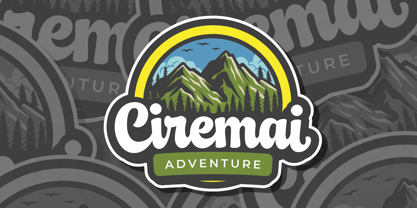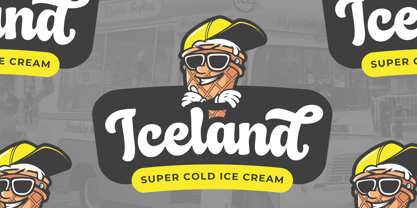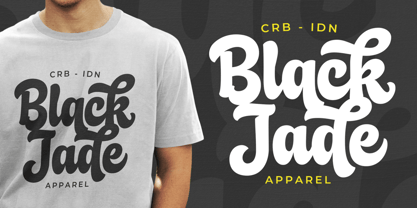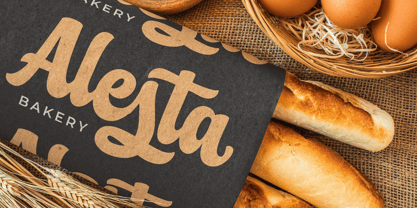
Lenister
by Hasta Type
The Lenister Font Family was designed by Salman Mashudi and published by Hasta Type. Lenister contains 1 styles. More about this family
Leicester is a bold and energetic script font that brings confidence and charm to your designs. With its upright style and smooth, flowing strokes, this typeface is ideal for logotypes, branding, packaging, and bold lettering projects.
Designers: Salman Mashudi
Foundry: Hasta Type